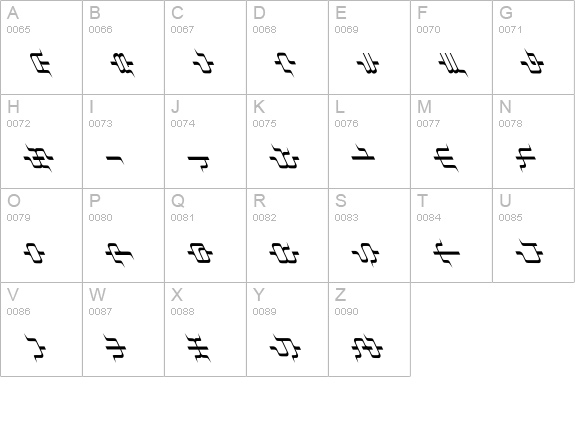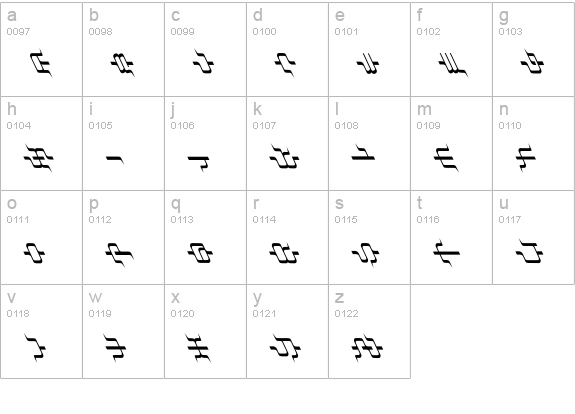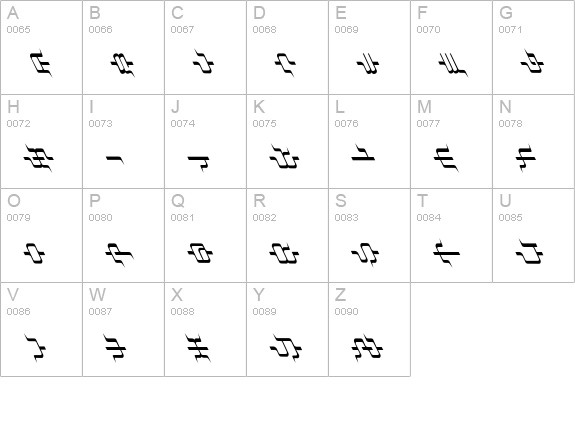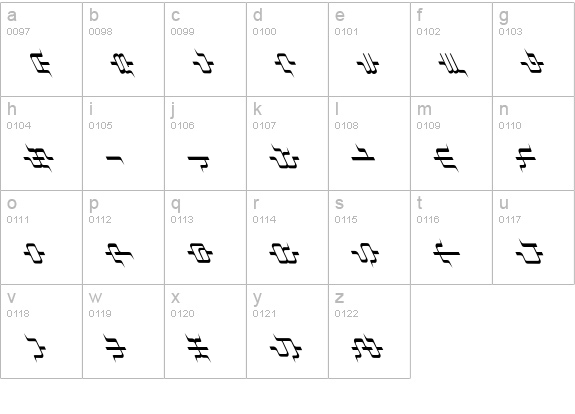
FCL-HeavyMossR1Ver10 Font Details
FCL-HeavyMossR1Ver10 font is a bold and impactful typeface designed to make a statement. With its strong and sturdy appearance, this font exudes confidence and commands attention. The thick lines and sharp edges of each character give it a modern and edgy look, perfect for headlines, titles, and bold statements. What sets FCL-HeavyMossR1Ver10 font apart is that it is available for free download at FontsMarket.com. This means that you can easily access and use this striking font in your design projects without any cost. Whether you're creating posters, banners, logos, or any other visual content, FCL-HeavyMossR1Ver10 font will add a touch of boldness and sophistication to your work. Don't miss out on this opportunity to enhance your designs with the powerful and eye-catching FCL-HeavyMossR1Ver10 font, available for free at FontsMarket.com. Download it today and let your creativity shine!